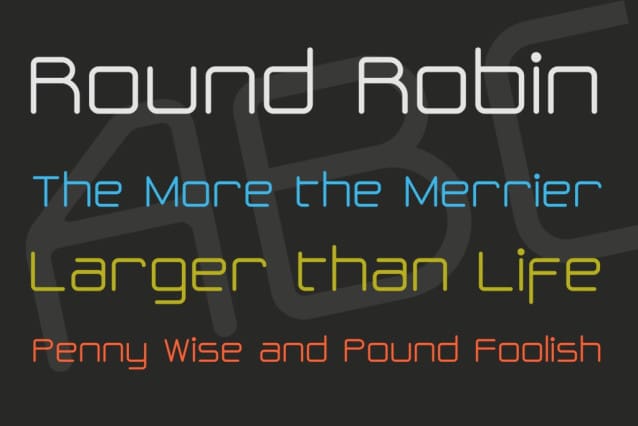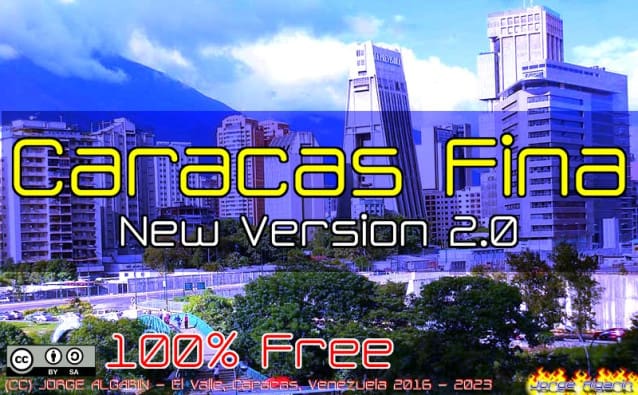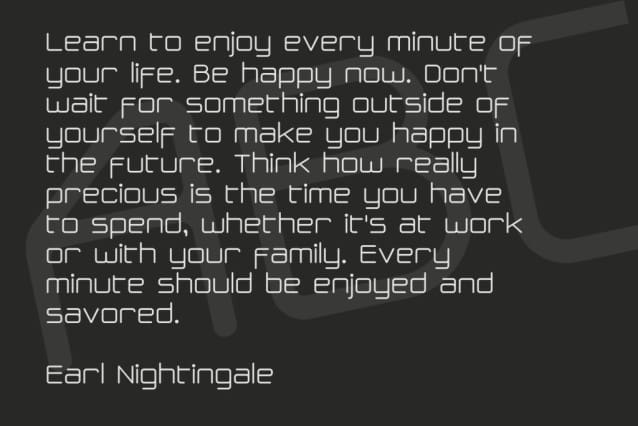
CaracasFina2.0 Font, Perfectly fit for branding, logo, wedding things, greeting cards, fashion, lookbook, marketing promotion, anytime you want to look fancy elegant but still casual.
| Designer Name: | Jorge Algarin |